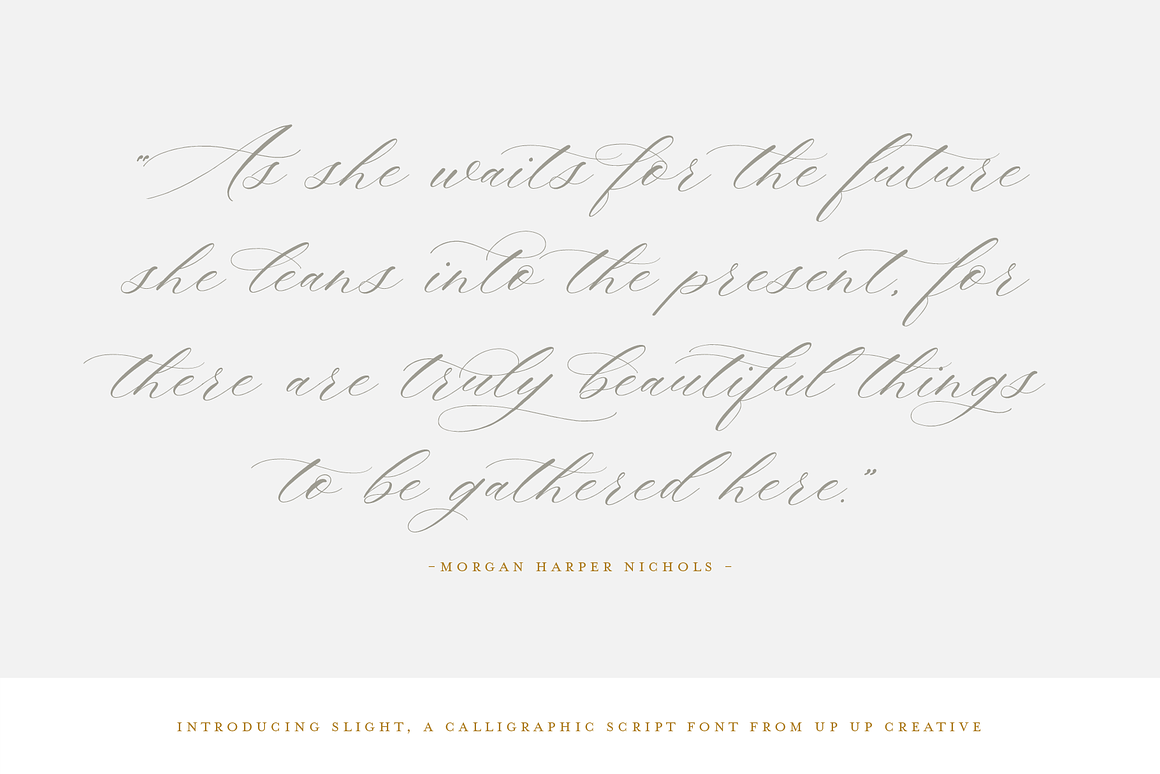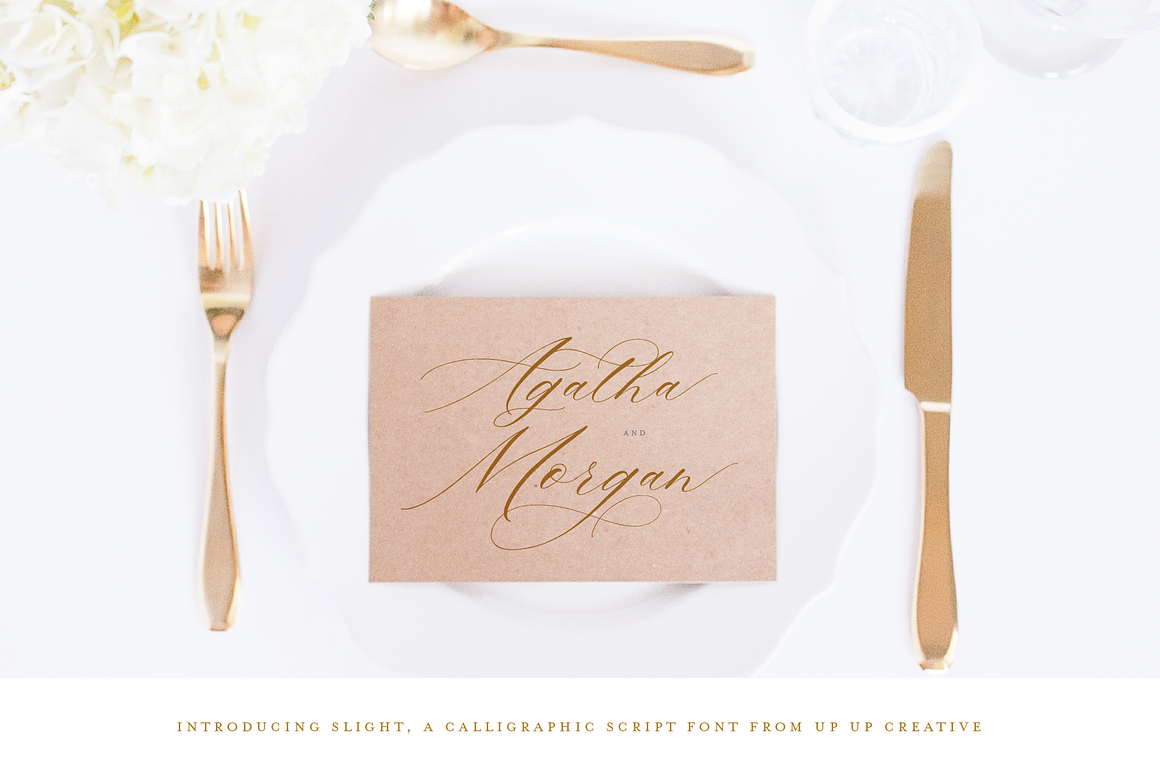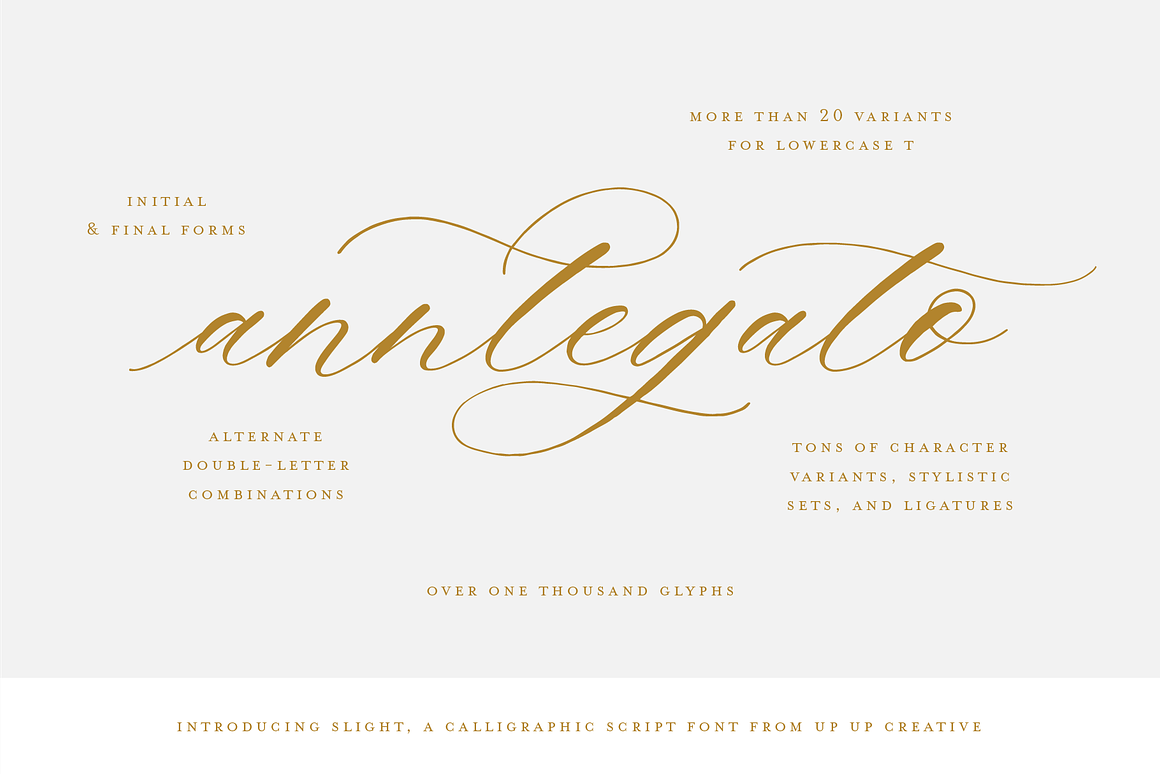
Slight, A Calligraphy Font
This Slight, A Calligraphy Font is perfect for delicate wedding stationery, refined beauty branding, minimalist luxury packaging, elegant greeting cards, sophisticated logo designs, upscale boutique materials, graceful social media content, premium cosmetics branding, subtle artistic projects, and refined feminine communications.
What makes this Slight, A Calligraphy Font exciting is its delicate sophistication that captures the subtle beauty of refined hand lettering. The font features graceful letterforms with gentle strokes and understated elegance that create refined visual appeal without overwhelming design compositions. Its subtle character and artistic restraint make it ideal for brands seeking to communicate quiet luxury, refined taste, and sophisticated minimalism in premium markets.
The Slight, A Calligraphy Font family includes regular and medium weights with delicate alternates, refined ligatures, and subtle flourishes. This comprehensive refined calligraphy font family provides designers with elegant typographic tools to create sophisticated compositions while maintaining the gentle character essential for luxury and minimalist brand communications.
Luxury brands and refined businesses consistently choose Slight, A Calligraphy Font Free Download for projects requiring delicate elegance and sophisticated restraint. This font's distinctive subtle character perfectly captures the quiet luxury and refined aesthetics that resonate with audiences who appreciate understated elegance and sophisticated design sensibilities.
The refined construction of Slight, A Calligraphy Font showcases delicately crafted letterforms with gentle proportions that ensure beautiful text flow across all elegant applications. Its sophisticated details and subtle beauty create memorable impressions while maintaining the readability necessary for effective luxury brand communication and refined design projects.
Professional designers appreciate how Slight, A Calligraphy Font brings immediate sophistication and delicate charm to brand communications. The font's subtle nature allows organizations to communicate refined luxury and elegant restraint while maintaining the artistic quality necessary for effective positioning in sophisticated and minimalist markets.
The timeless appeal of Slight, A Calligraphy Font makes it particularly effective for brands emphasizing quiet luxury, refined aesthetics, and sophisticated minimalism. Its gentle character resonates strongly with audiences who appreciate subtle beauty, understated elegance, and brands that communicate luxury through refined restraint rather than bold statements.
Whether creating materials for luxury wellness brands or developing stationery for exclusive events, Slight, A Calligraphy Font Free Download provides the refined typographic foundation that sophisticated brands need to communicate their delicate elegance, quiet luxury, and the subtle sophistication that defines understated premium aesthetics and refined design excellence.